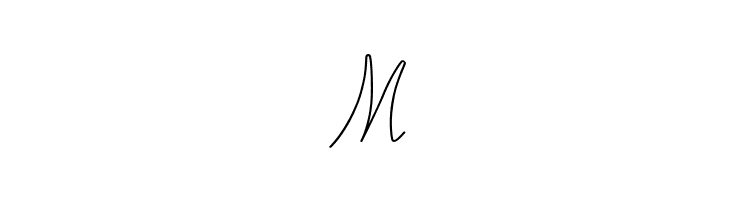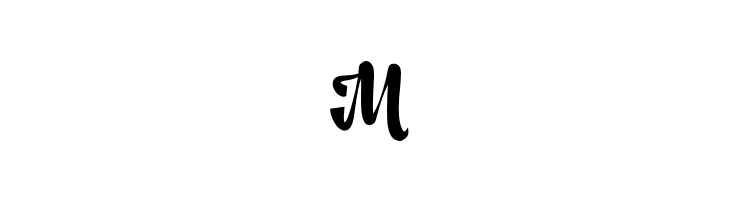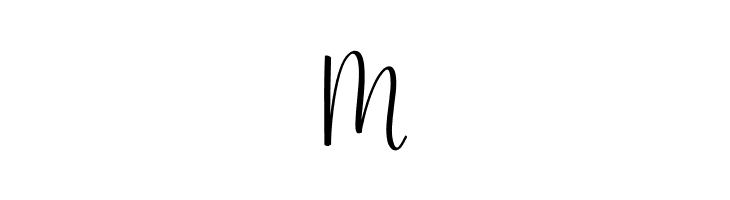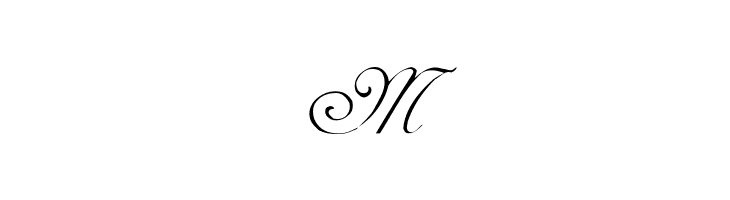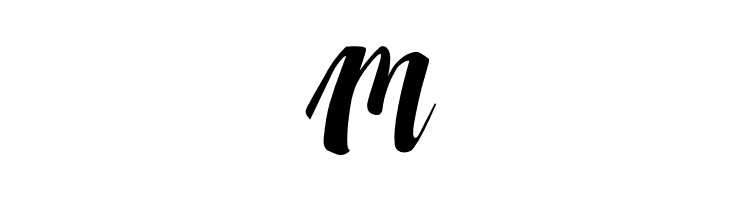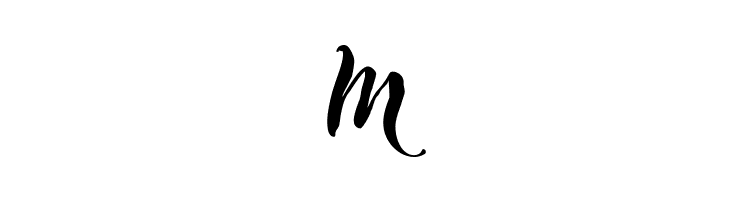
A bold, rugged font with a hand-drawn, distressed appearance.
A dynamic and elegant script font with flowing, cursive design.
A dynamic and flowing script font with elegant cursive letterforms.
A lively and elegant script font with fluid strokes and dynamic character.
A graceful and sophisticated script font with a flowing, handwritten style.
A flowing, cursive font with elegant loops and swashes.
An elegant, flowing script font with a handwritten style.
A playful and elegant script font with flowing, interconnected letters.
An elegant, cursive font with ornate swirls and flourishes.
An elegant script font with flowing, cursive letterforms and intricate flourishes.
An elegant script font with flowing, ornate letterforms and intricate swashes.
A bold, expressive script font with flowing, cursive letterforms and dramatic flourishes.
A graceful and sophisticated script font with flowing, interconnected letters.
A flowing, cursive script font with elegant loops and swashes.
An elegant script font with flowing, decorative strokes.
A bold, flowing script font with elegant curves and playful loops.
A bold, playful script font with smooth curves and dynamic flow.
A flowing, cursive script font with elegant, connected characters.
A bold, playful italic font with rounded, flowing forms and a vintage flair.
A bold, playful font with rounded, thick strokes and a whimsical style.
A bold, gothic-inspired font with sharp, angular edges and high contrast.
A bold, dynamic script font with elegant, flowing cursive letterforms.
A graceful monoline script font with a handwritten style.
A bold, elegant script font with flowing, connected characters.
A bold, flowing script font with elegant curves and connected strokes.
A bold, modern sans-serif font with clean lines and balanced spacing.
A bold, flowing script font with elegant curves and dramatic swashes.
A bold, expressive handwritten font with a playful and artistic style.
A graceful and flowing script font with elegant curves.